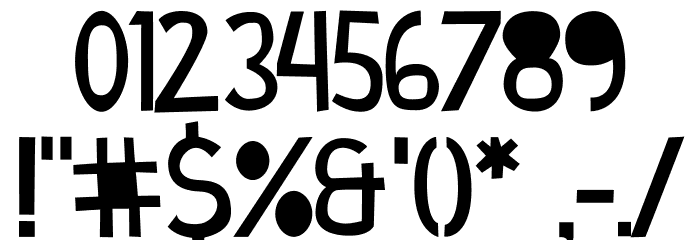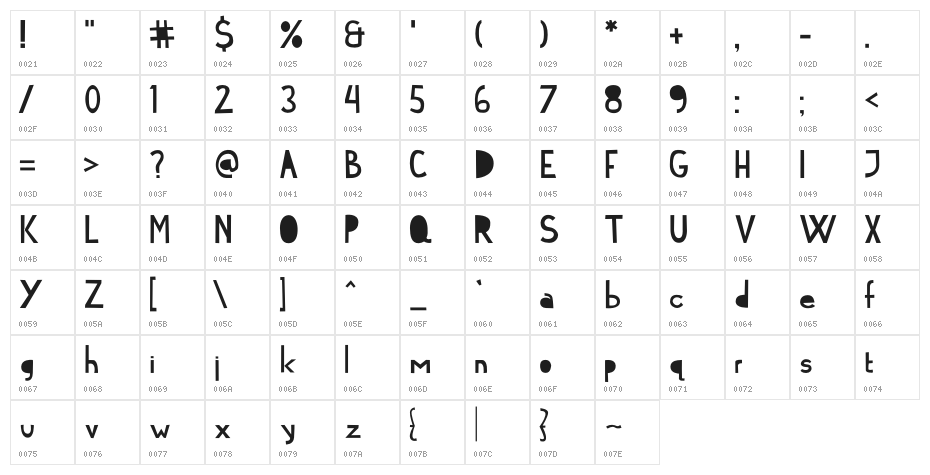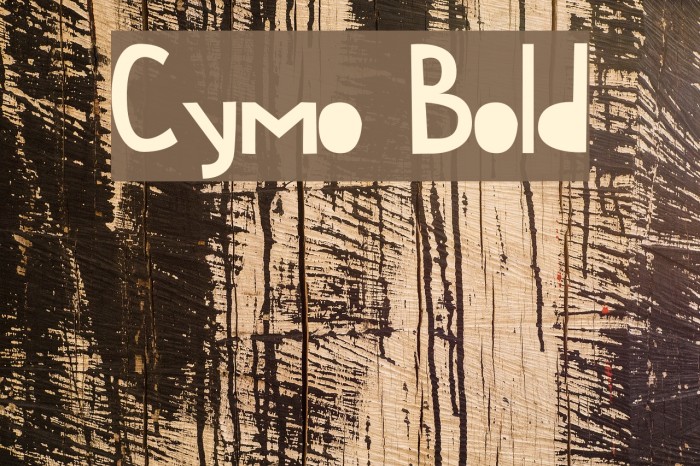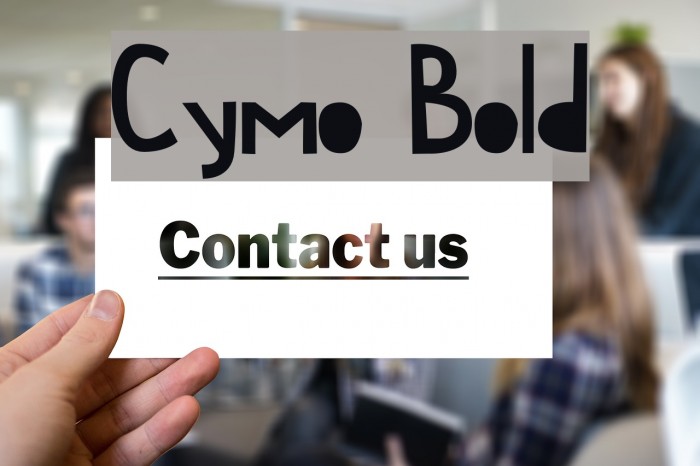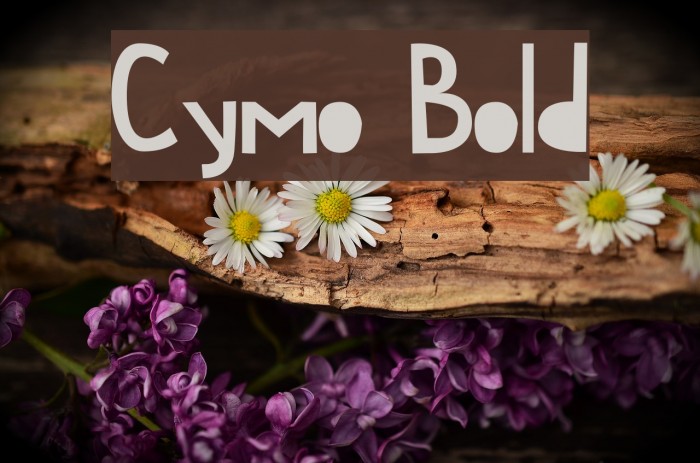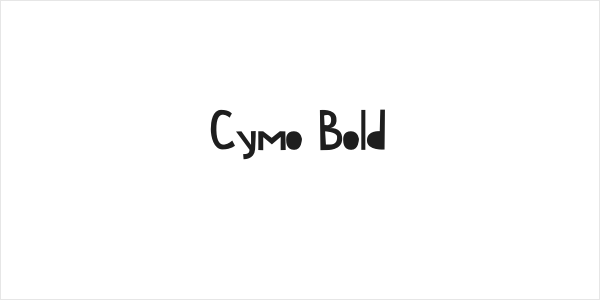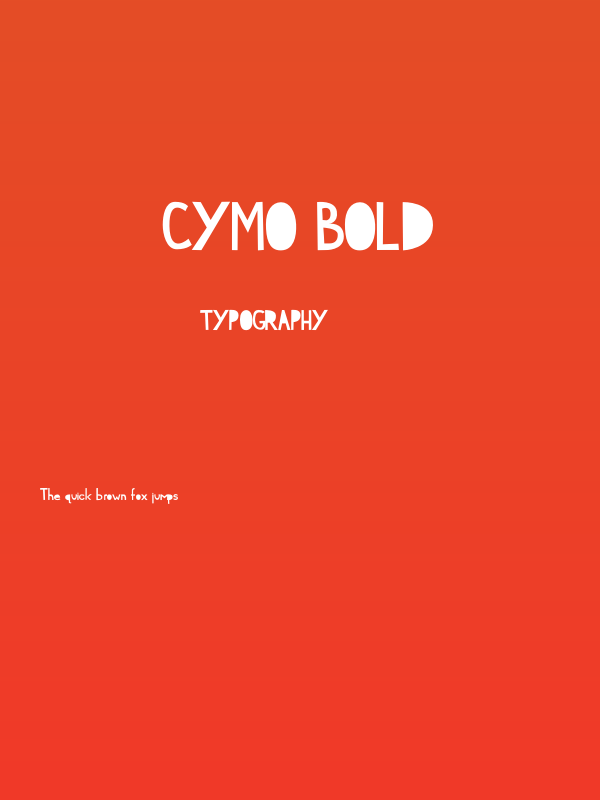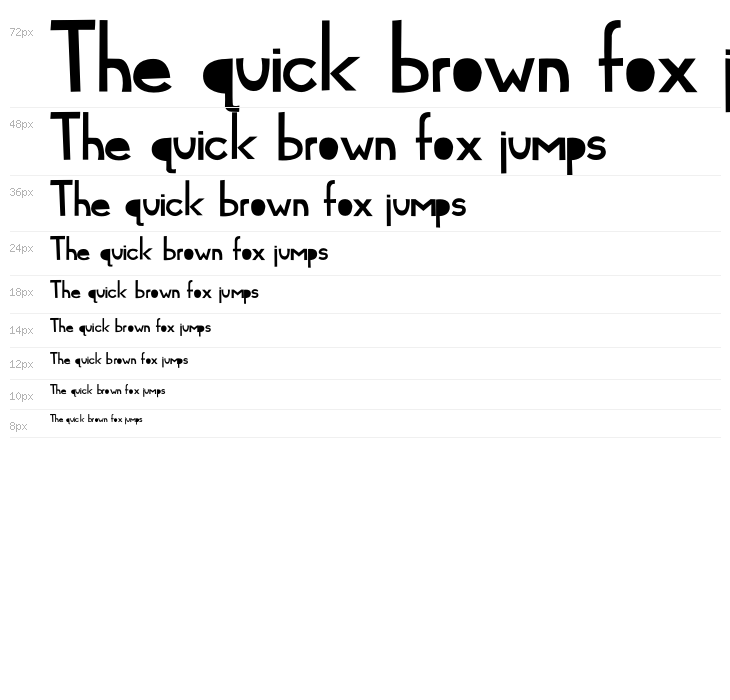
Cymo Bold Font
Cymo Bold Description
This font features a bold and playful design with a strong geometric influence. The letters are characterized by their thick, uniform strokes and a slightly condensed appearance, giving them a modern and dynamic feel. The uppercase letters are particularly striking, with sharp angles and a sense of movement. The lowercase letters maintain the boldness but introduce a more rounded and approachable style. The numerals are consistent with the overall aesthetic, offering a clear and bold presentation. Special characters are designed to complement the letters, maintaining the same bold and geometric style. This font is ideal for projects that require a strong visual impact and a contemporary look.
| Proposed Projects | Ideal for branding, posters, headlines, and any design that requires a bold statement. |